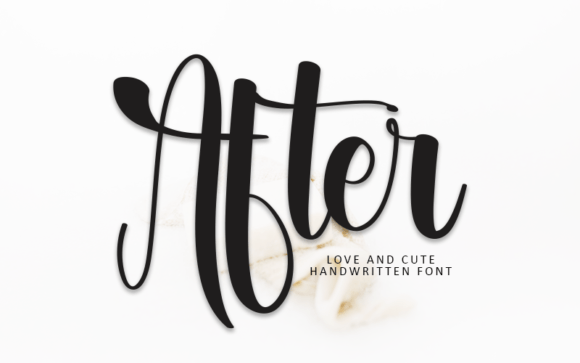
Introducing After Font: Elevate Your Designs with Elegance and Sophistication
In the world of typography, a font can make all the difference in the success of a design project. Whether you’re a professional designer, crafty DIY enthusiast, or social media influencer, finding the right font can be a daunting task. That’s where After Font comes in – a stunning, handwritten font that embodies class, modernity, and versatility. In this article, we’ll dive into the features and benefits of After Font, and explore how it can elevate your designs to new heights.
A Beautifully Crafted Handwritten Font
After Font is a beautiful and refined handwritten font that exudes elegance and sophistication. Its smooth, flowing lines and delicate curves make it perfect for a wide range of design applications, from logos and branding to invitations, stationery, and wedding designs. The font’s modern aesthetic ensures that your designs will look fresh and contemporary, while its classic undertones provide a sense of timelessness.
One of the standout features of After Font is its incredible versatility. Its uses are limitless, and it can be applied to various design projects, including:
- Invitations and Stationery: Add a touch of elegance to your invitations, greeting cards, and stationery with After Font’s beautiful script.
- Wedding Designs: Make your special day even more memorable with custom wedding designs, including invitations, programs, and decorations.
- Social Media Posts: Elevate your social media presence with eye-catching graphics and posts that showcase your brand’s unique voice.
After Font is PUA (Private Use Area) encoded, which means that you can access a vast array of glyphs and ligatures with ease. This feature allows you to:
- Explore Endless Glyphs: Unlock a treasure trove of alternative characters, swashes, and ligatures to add a personal touch to your designs.
- Customize with Ease: Use the PUA encoded glyphs to create unique and customized designs that reflect your brand’s personality.
Why Choose After Font?
With so many fonts available, why choose After Font? Here are just a few reasons:
- Unique and Versatile: After Font offers a distinctive and adaptable design that can be used across various platforms and design applications.
- Elegant and Sophisticated: The font’s refined aesthetic ensures that your designs will exude class and sophistication.
- User-Friendly: With PUA encoding, accessing glyphs and ligatures is easy, making it simple to create stunning designs.
After Font is a game-changing addition to any designer’s toolkit. Its beautiful, handwritten script, combined with its versatility and PUA encoding, make it an ideal choice for a wide range of design projects. Whether you’re a seasoned professional or a crafty DIY enthusiast, After Font is sure to elevate your designs and help you create stunning visual content that captivates your audience.